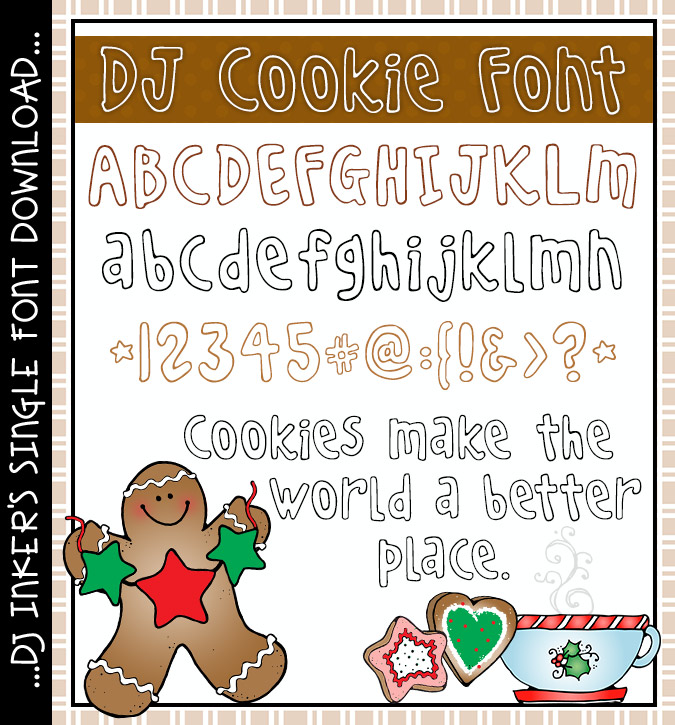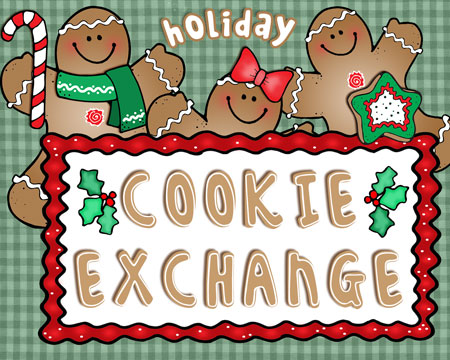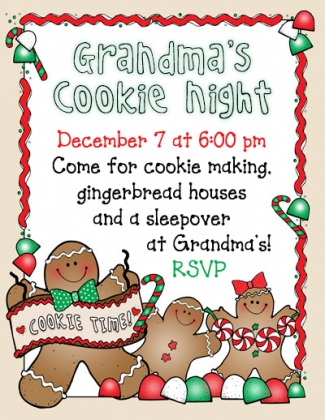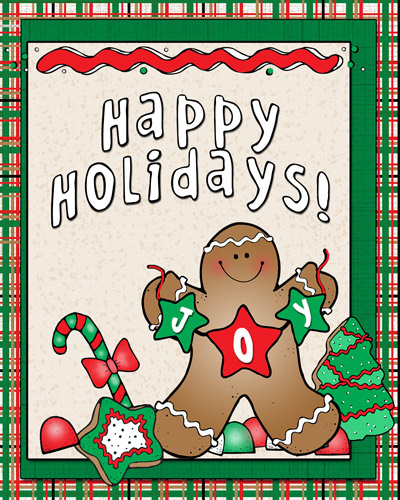
DJ Cookie Font Download
Cook up a smile on your creations with our sweet DJ Cookie font. This
lettering will be perfect for gingerbread, frosting, preschool, birthdays,
Grandma's house and holiday cookie parties.